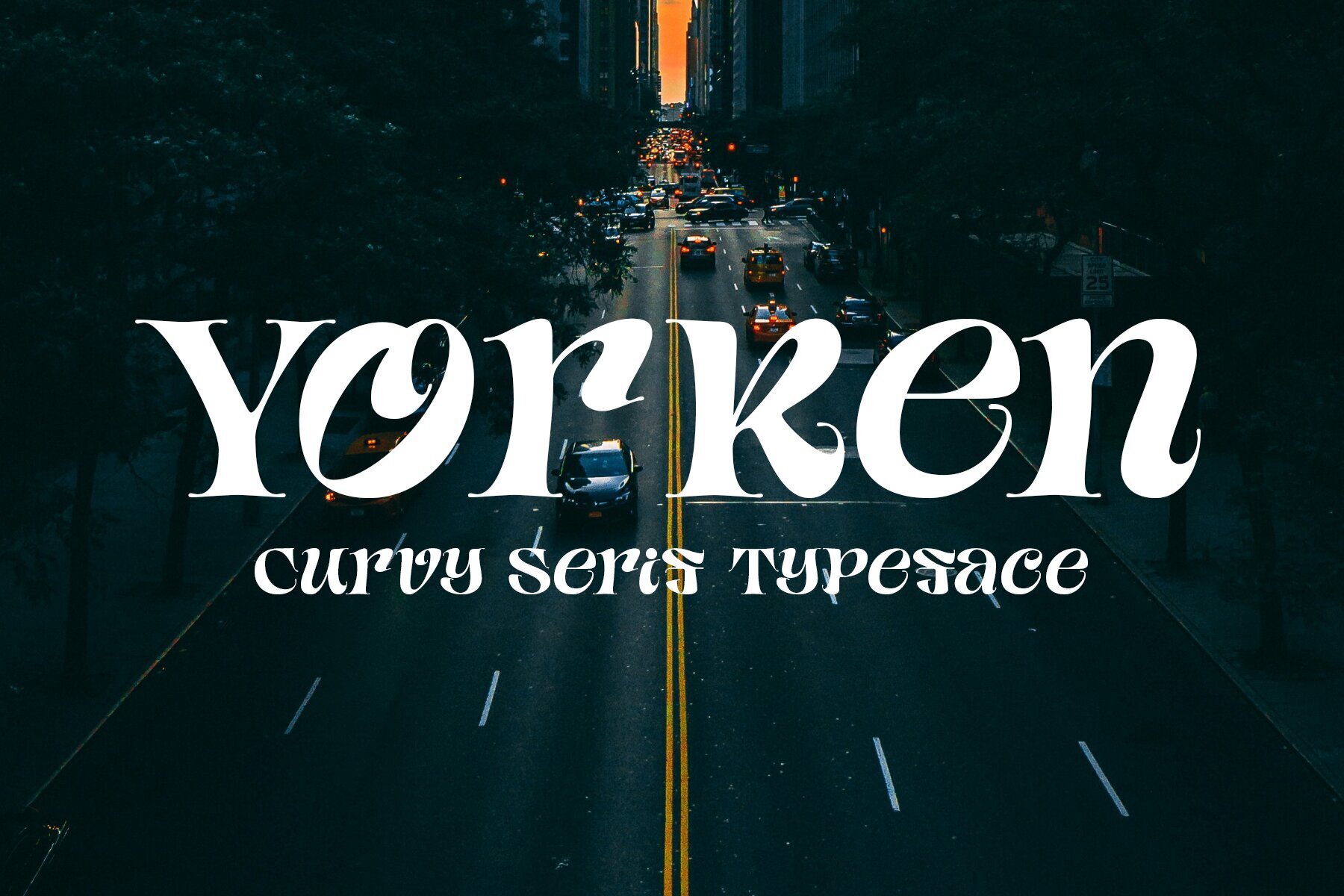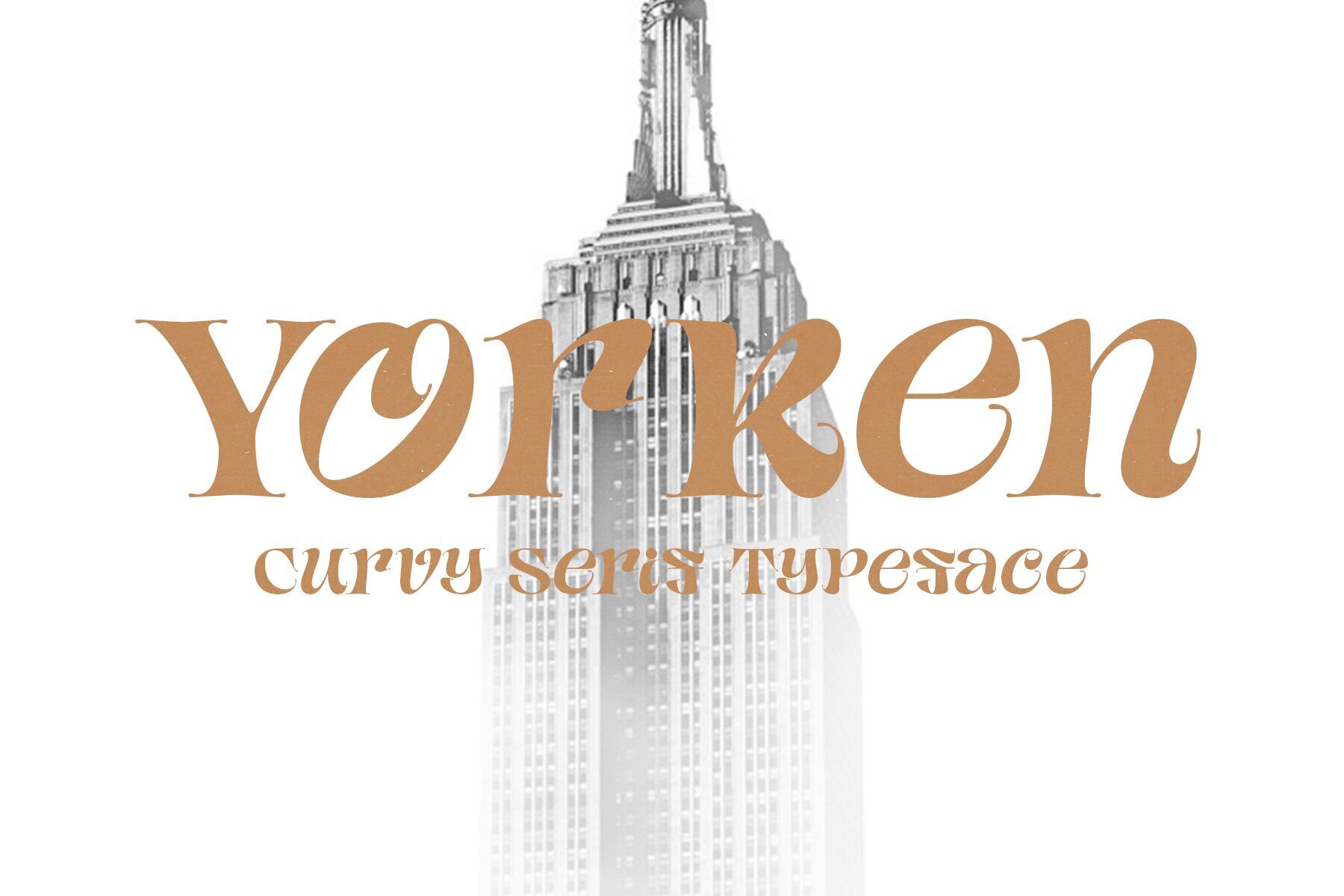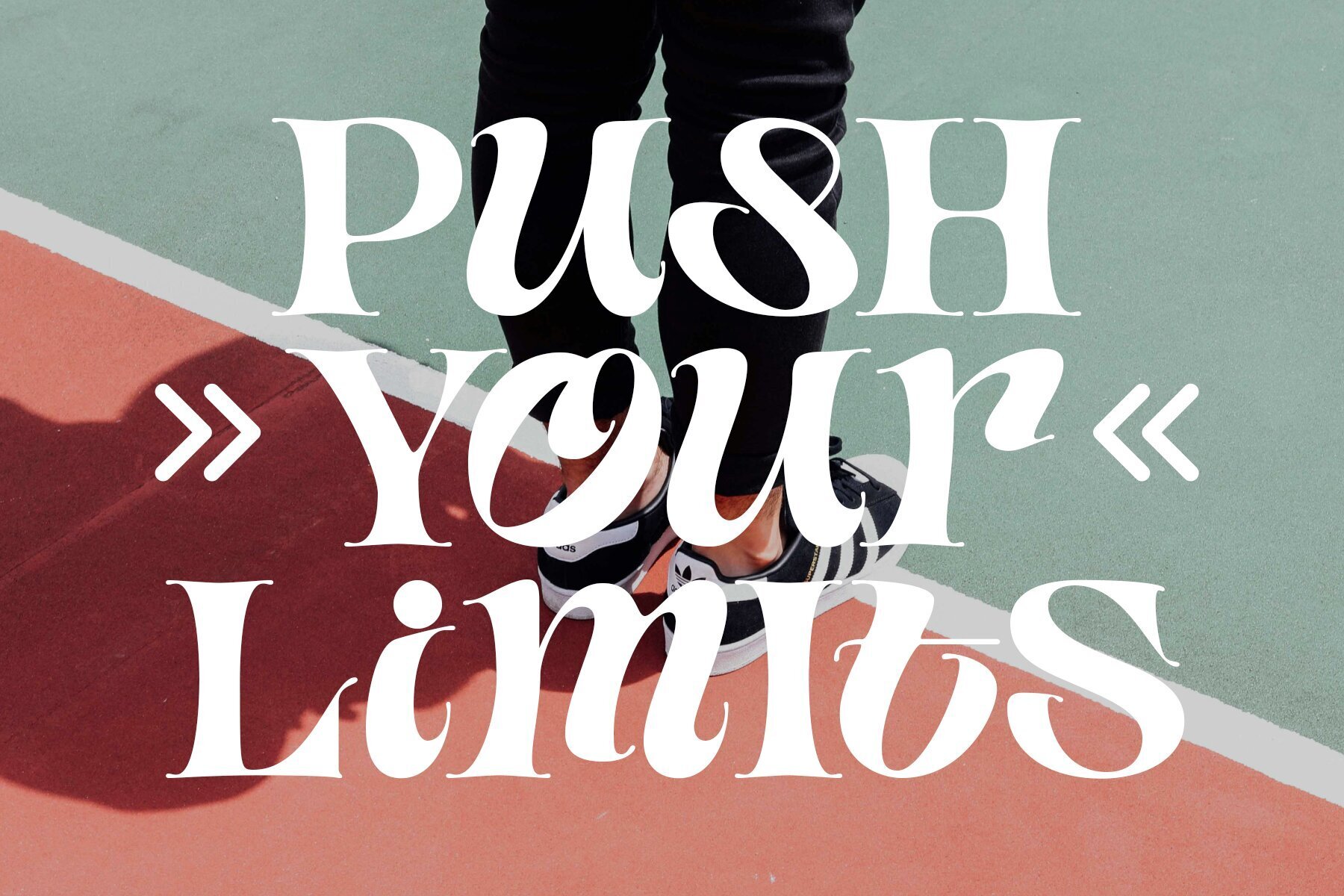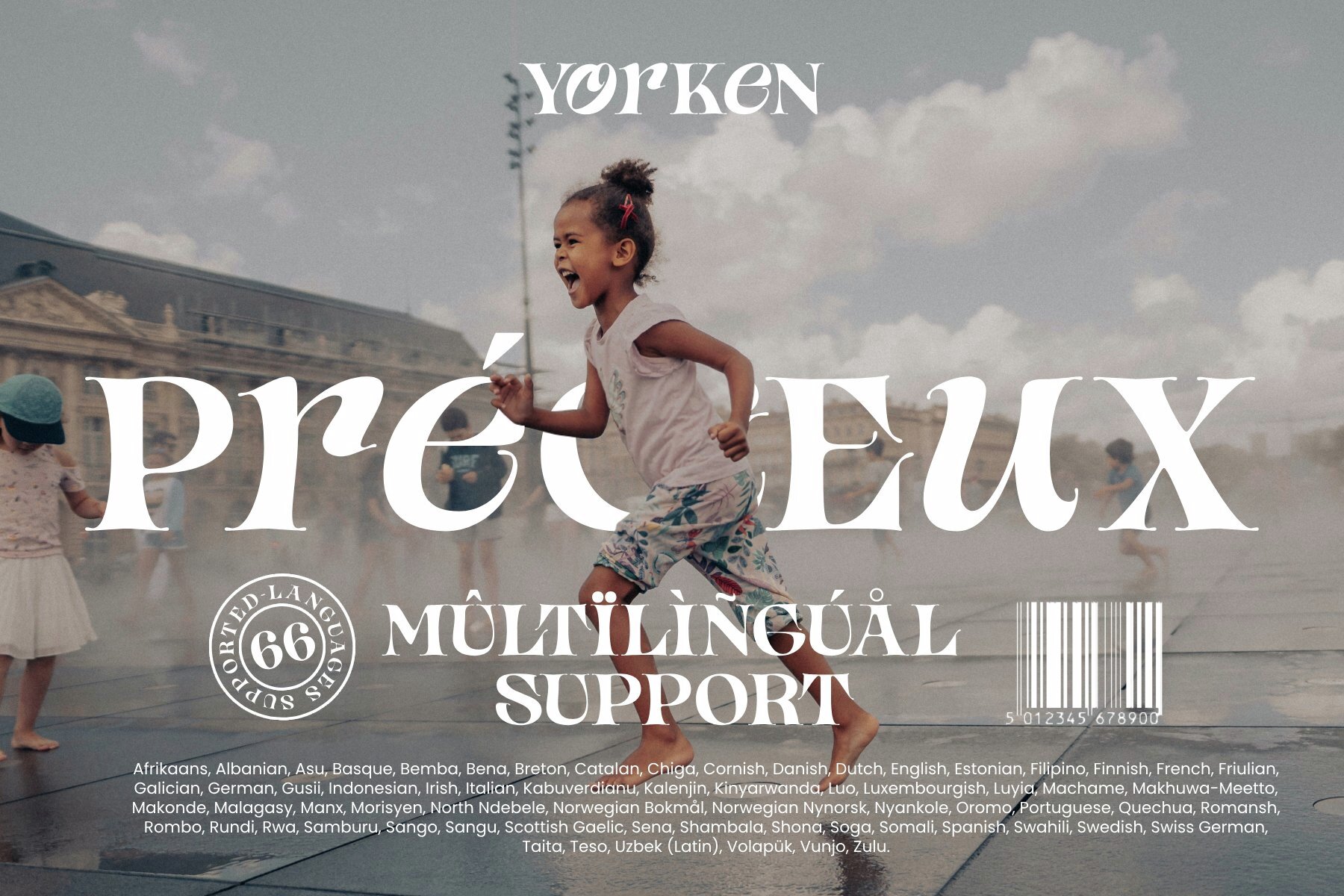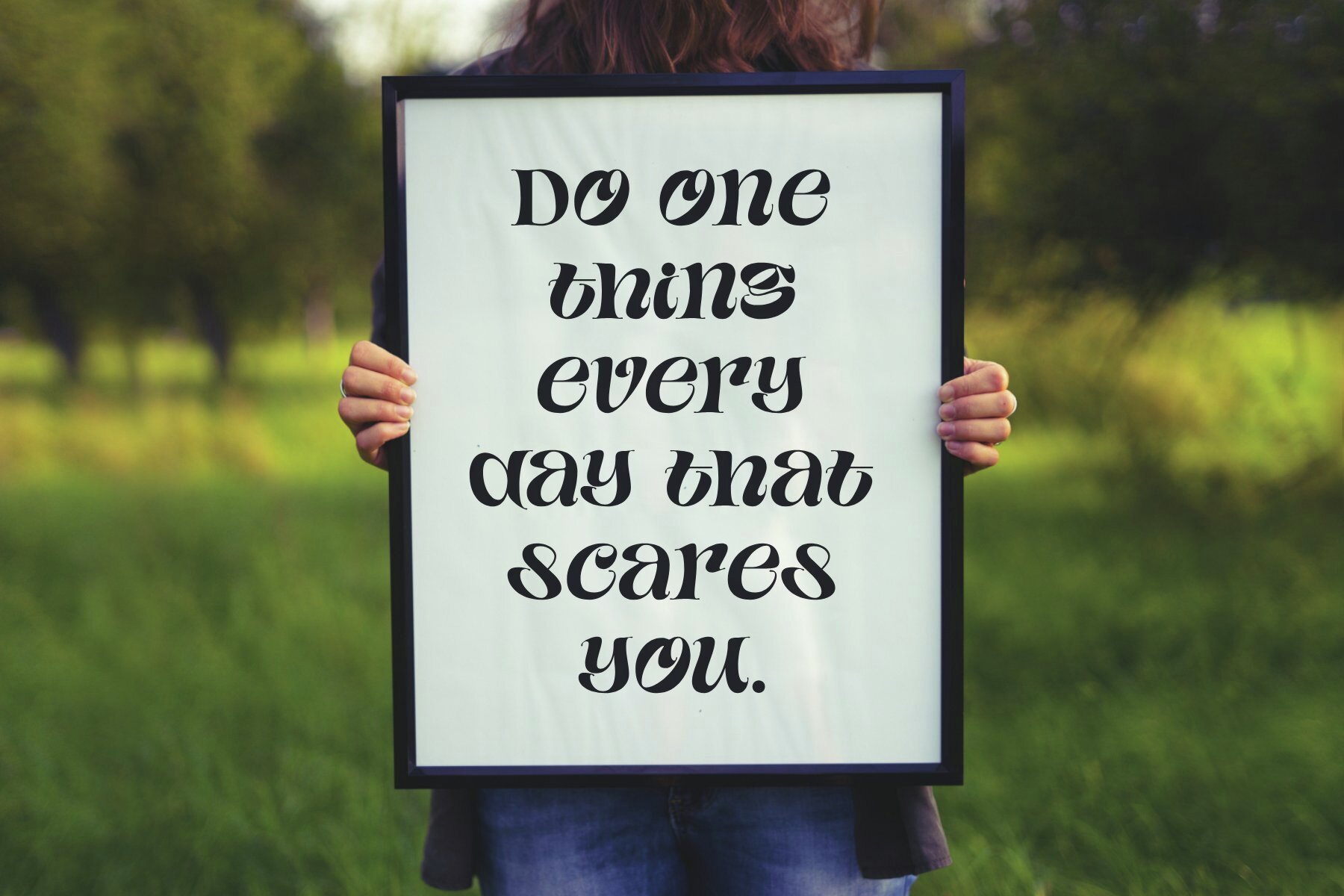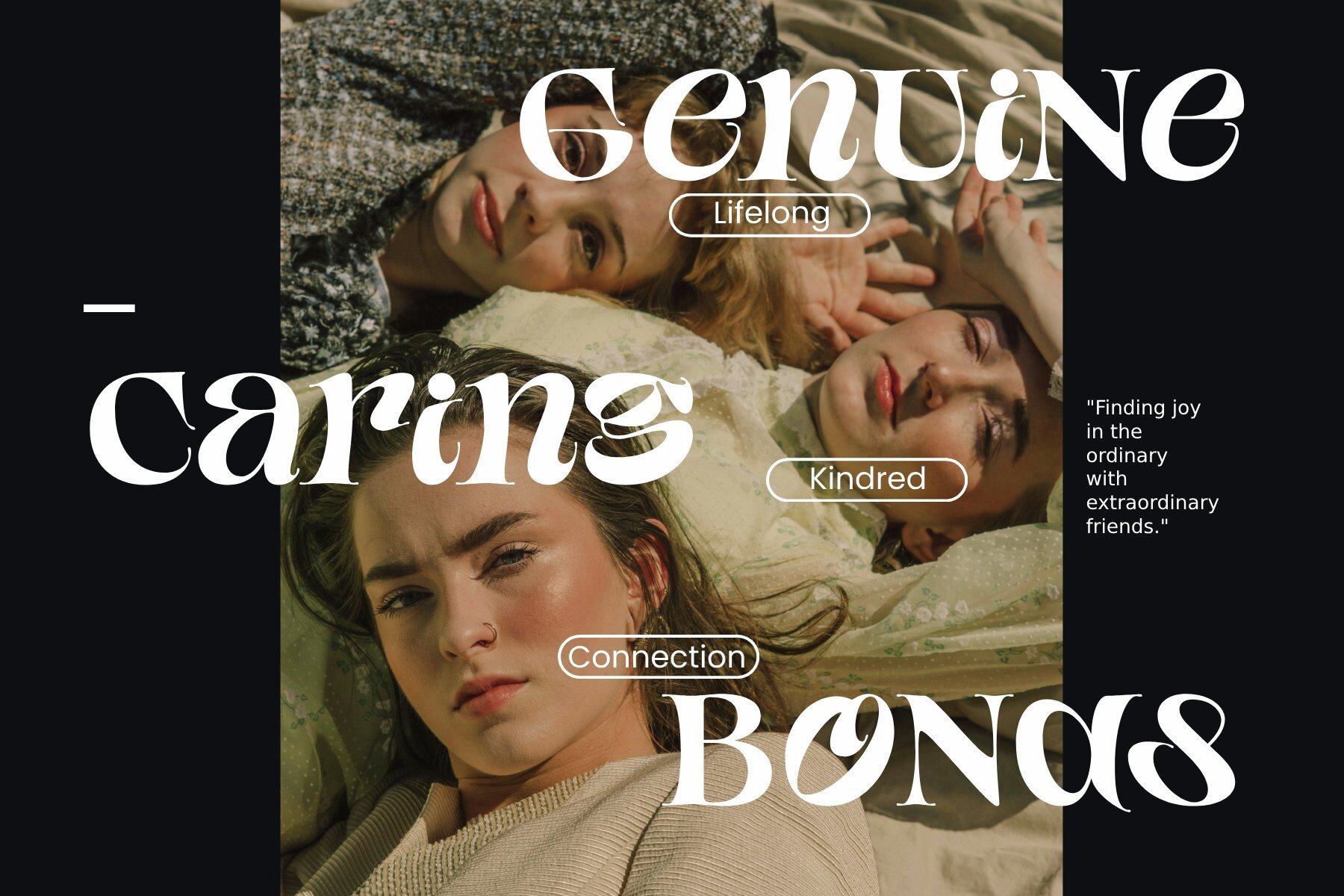
Yorken Font
Yorken Regular
Yorken is a curvy serif typeface with traditional inspiration. It uses a mix of upper & lowercase characters with the same cap height for really unique results and stylistic possibilities.